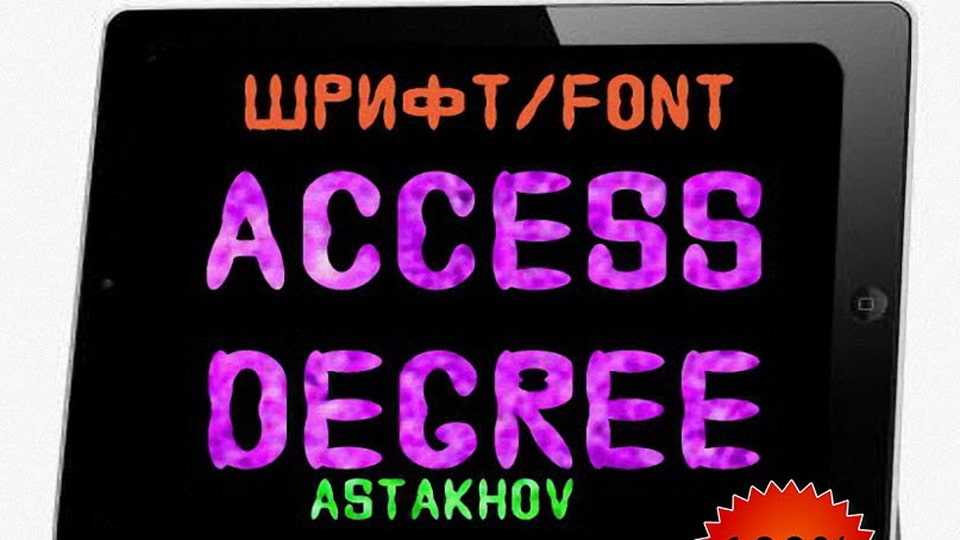
Download Access Degree font, a bold and futuristic display typeface with a unique, bubbly texture reminiscent of liquid or neon light reflections.
Designer: D’ Astakhov